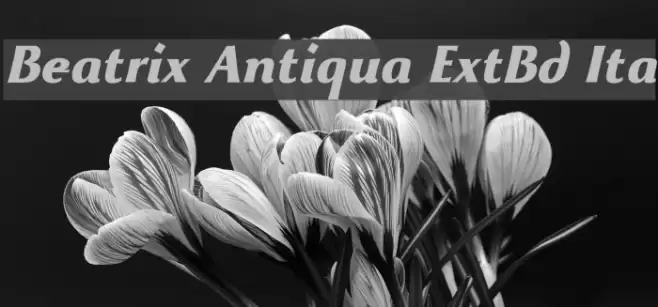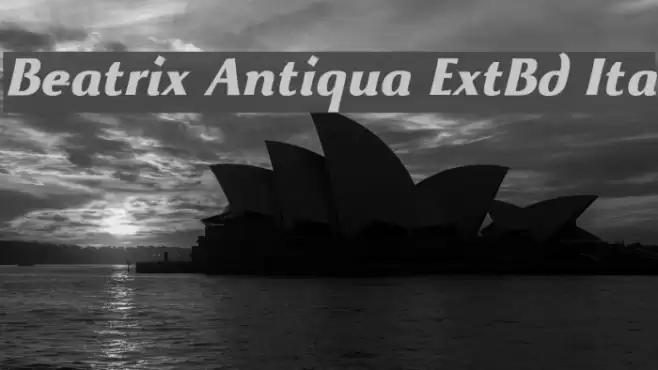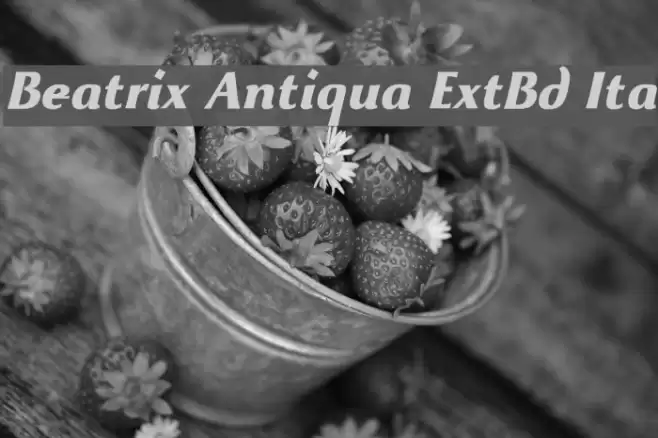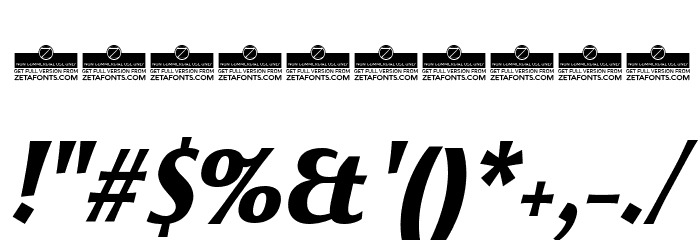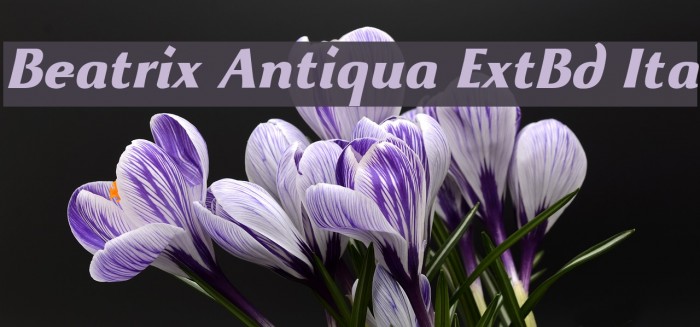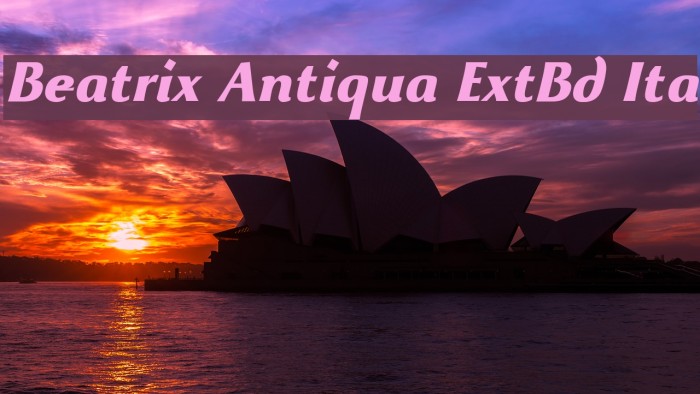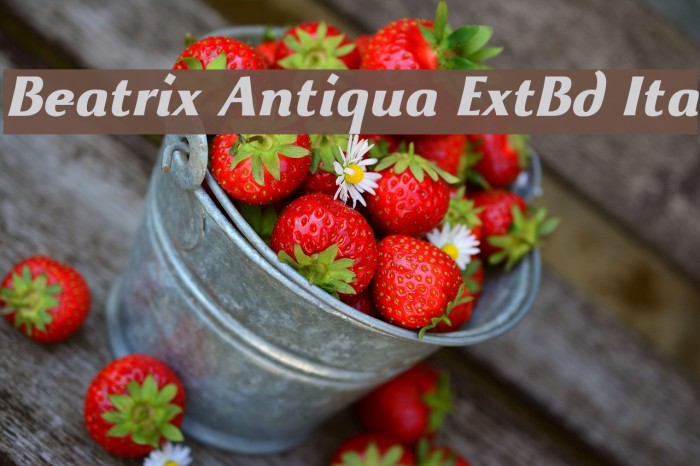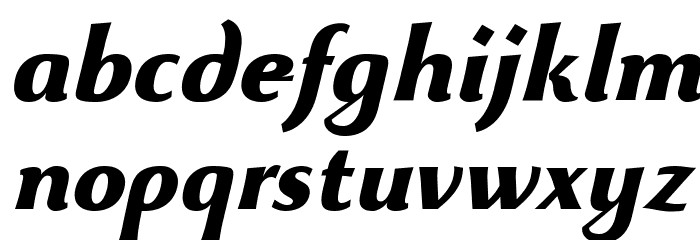
Beatrix Antiqua ExtBd Ita Font
Beatrix Antiqua ExtBd Ita Description
This font exhibits a bold and elegant style with a distinct italic slant, giving it a dynamic and sophisticated appearance. The characters are well-defined with a high contrast between thick and thin strokes, enhancing readability while maintaining a stylish flair. The uppercase letters are commanding and assertive, while the lowercase letters maintain a graceful flow. The numerals and special characters are consistent with the overall design, ensuring uniformity across different text elements. This font's unique characteristics make it suitable for a variety of design applications.
A bold, italic font with high contrast and elegant style from Uncategorized fonts.
- Proposed Projects: Ideal for branding, editorial design, luxury product packaging, and elegant invitations.
- Overall Style: Classic
- Use Case: Headlines, Logos, Editorial design